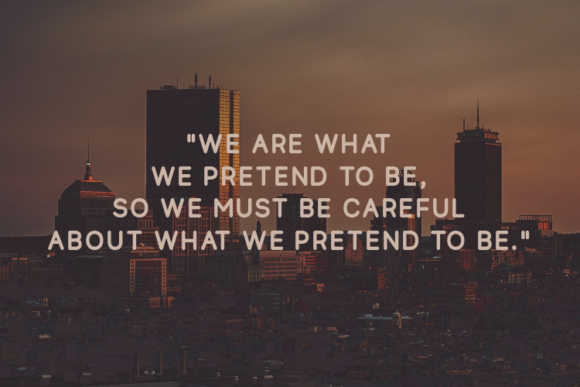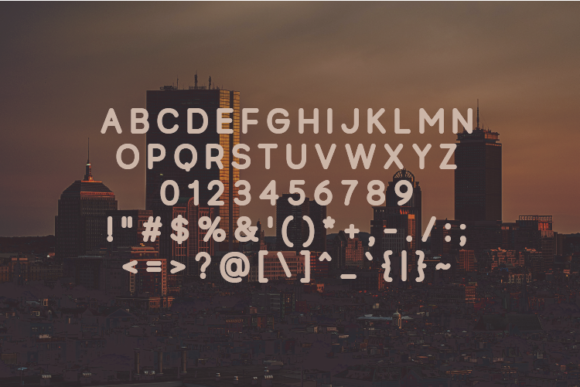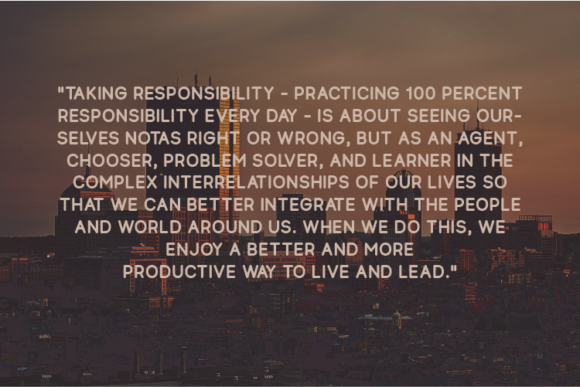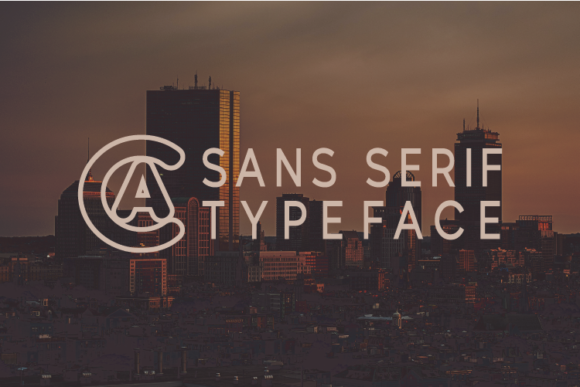
The Perfect Design Companion: Boston Font
Remember that moment when you’re brainstorming ideas for a new project and you stumble upon the perfect font? It’s like the universe aligns, and everything falls into place. For many designers, that moment comes when they discover the Boston Font.
Boston is a modern and classy sans serif typeface designed to elevate any design project. Its versatility makes it perfect for a wide range of applications, from logos and weddings to invitations and advertisements. With its clean and sophisticated lines, Boston Font adds a touch of elegance to any visual creation.
Whether you’re a seasoned designer or just starting out, Boston Font is an invaluable addition to your toolkit. Its flexibility and sophistication make it a go-to choice for designers looking to create stunning visuals that grab attention and leave a lasting impression.
Boston Font Key Features
- Font Family: Boston is a sans-serif font family.
- Unique Characteristics: Boston is designed with a unique blend of geometric and humanistic elements, giving it a friendly and approachable feel.
Boston Font Review
As a designer, I was initially drawn to the Boston font due to its unique blend of modern and classic styles. Here’s my honest review:
- The Boston font’s clean and minimalist aesthetic makes it perfect for a wide range of applications, from corporate branding to digital products.
- The font’s geometric shapes and rounded edges give it a friendly and approachable feel, making it suitable for user interfaces and interfaces that require a human touch.
- The font’s versatility allows it to work well in both print and digital mediums, making it a great choice for cross-platform projects.
- The Boston font may not be the best choice for projects that require a high level of expressiveness or drama, as its clean lines and simple shapes can make it feel a bit flat in certain contexts.
- The font’s lack of distinct personality may make it feel generic or unremarkable in certain situations, particularly when paired with other fonts that have more distinct characteristics.
Overall, the Boston font is a solid choice for designers who want a clean and modern look without committing to a more dramatic or expressive style. While it may not be the best fit for every project, it’s a versatile and reliable option that’s sure to please.
The Boston Font is a great choice for creating a vintage or classic look. Use it for:
– Headlines and titles
– Labels and signage
– Invitations and event materials
– Retro-style advertisements and marketing materials
The Boston Font, a classic sans-serif typeface, is known for its clean and modern aesthetic. However, designers may be looking for alternatives to suit their specific needs. Here are a few options to consider:
Helvetica
Helvetica is a highly versatile sans-serif font that is widely used in various design fields. It is clean, simple, and highly legible. Helvetica is often used in editorial design, advertising, and corporate branding. Compared to Boston Font, Helvetica has a slightly more geometric and modern feel, making it suitable for modern and tech-related projects.
Arial
Arial is a sans-serif font that is known for its simplicity and clarity. It is often used in body text and is a popular choice for digital design. Arial is a good alternative to Boston Font when you need a clean and easy-to-read font for large blocks of text. However, it lacks the distinctive character of Boston Font and may not be as suitable for high-end or premium branding.